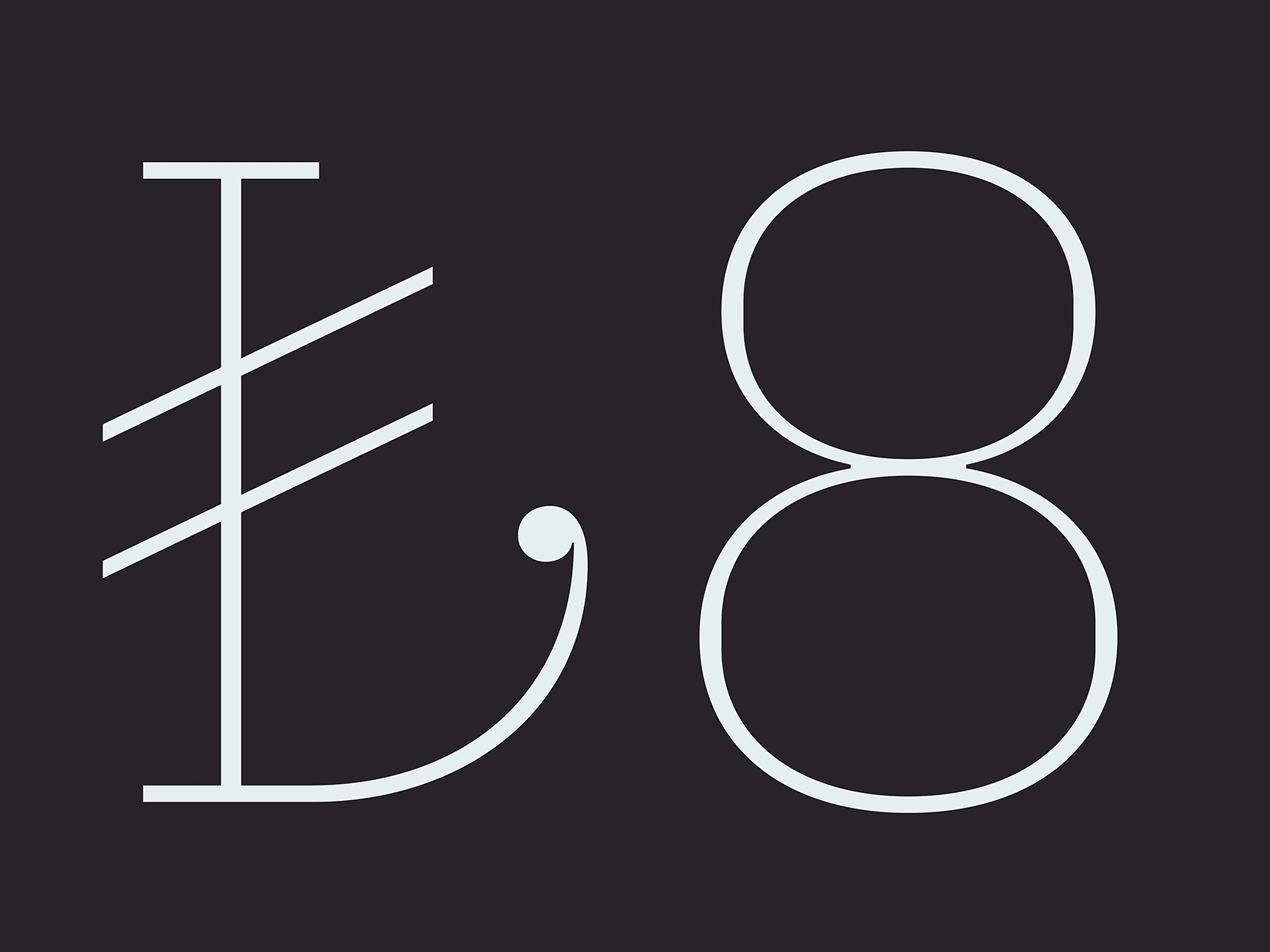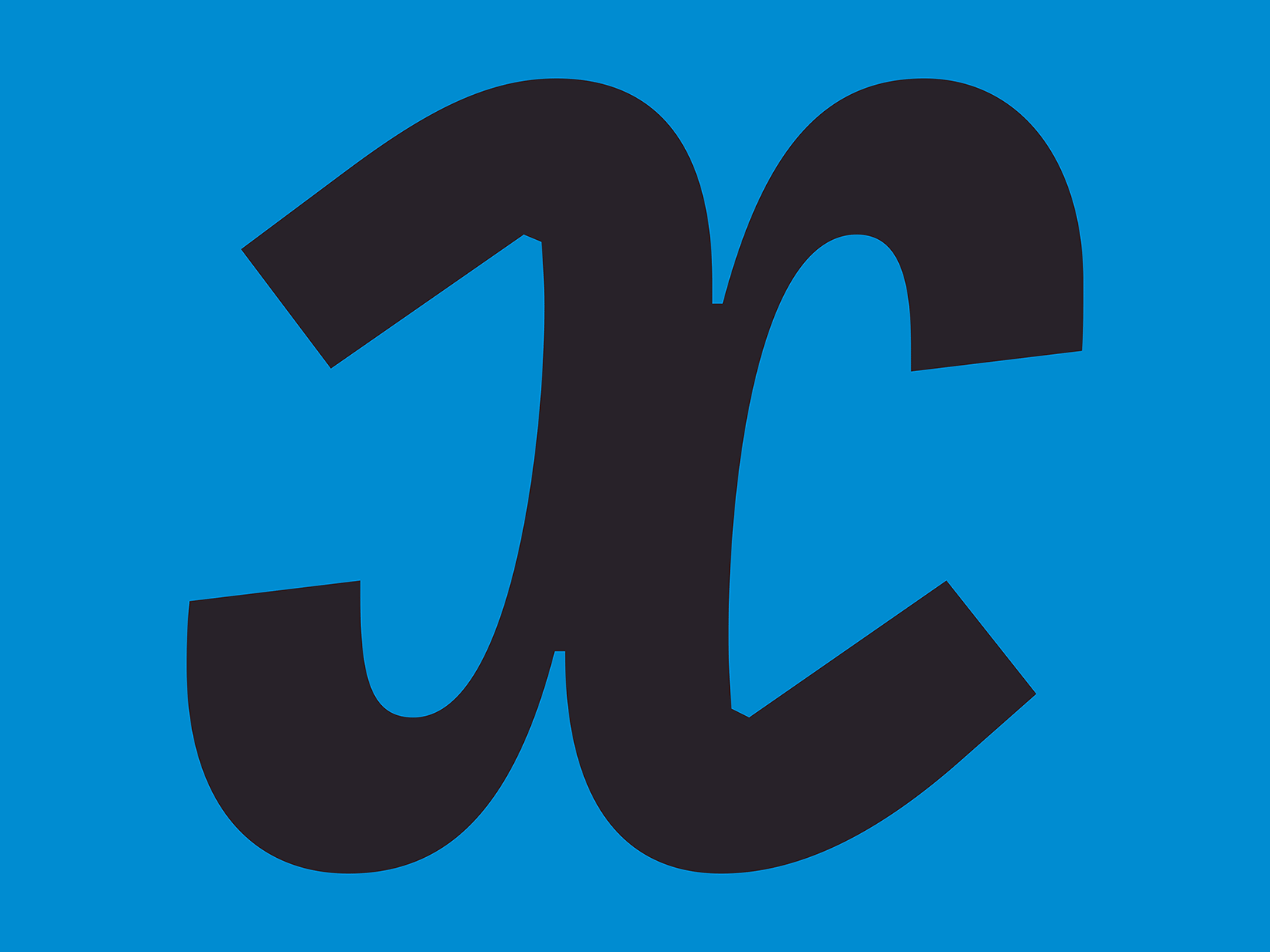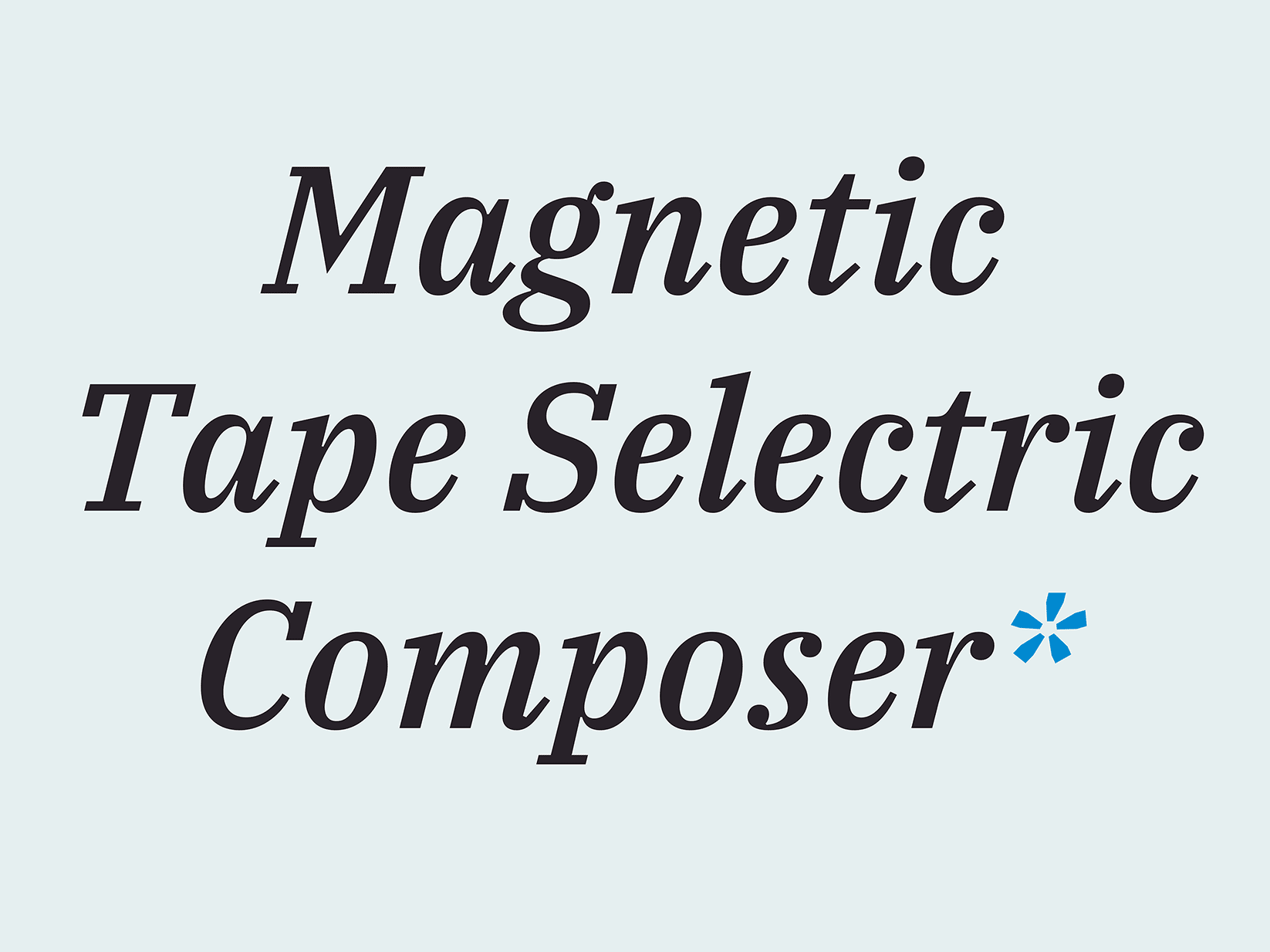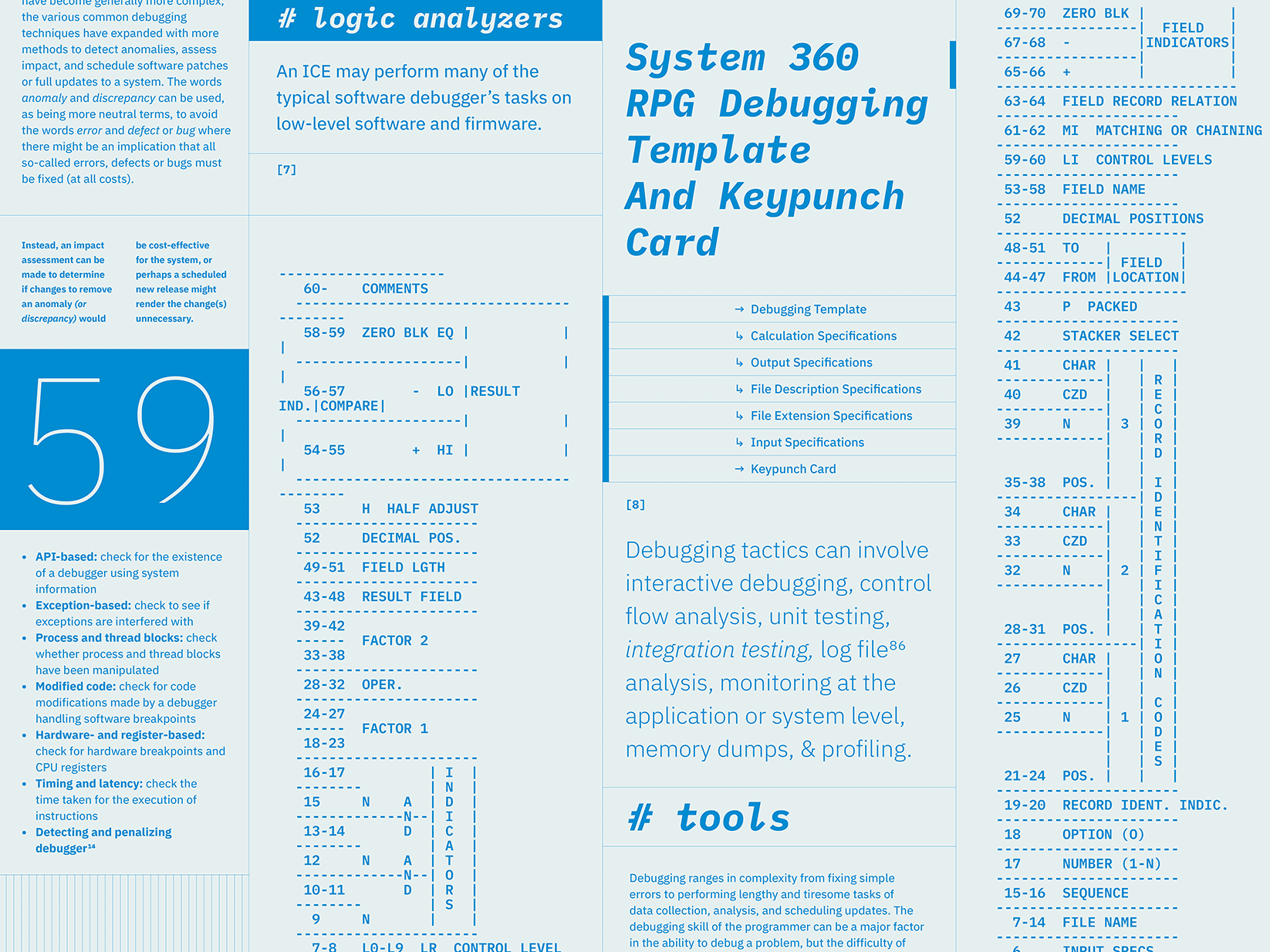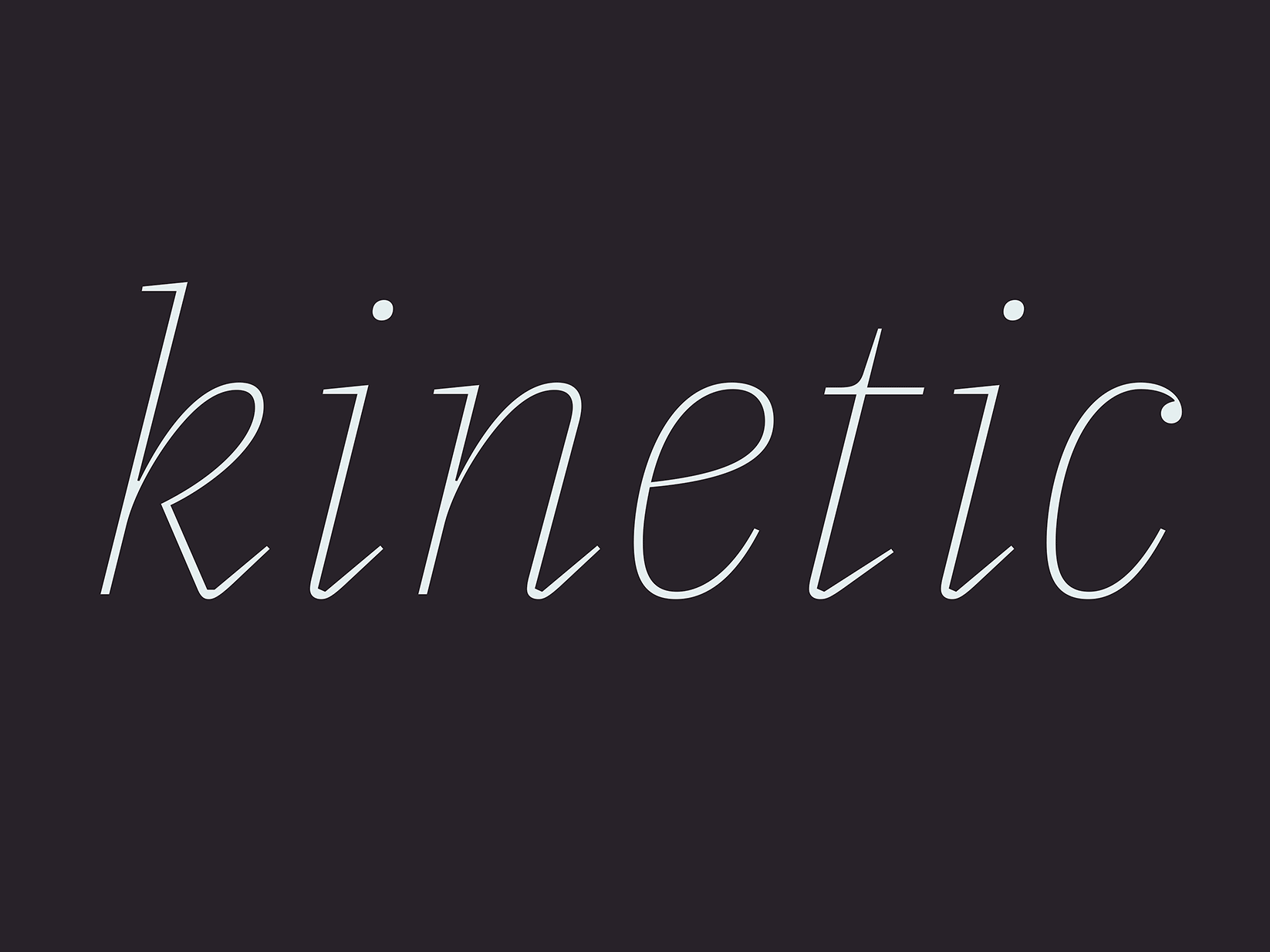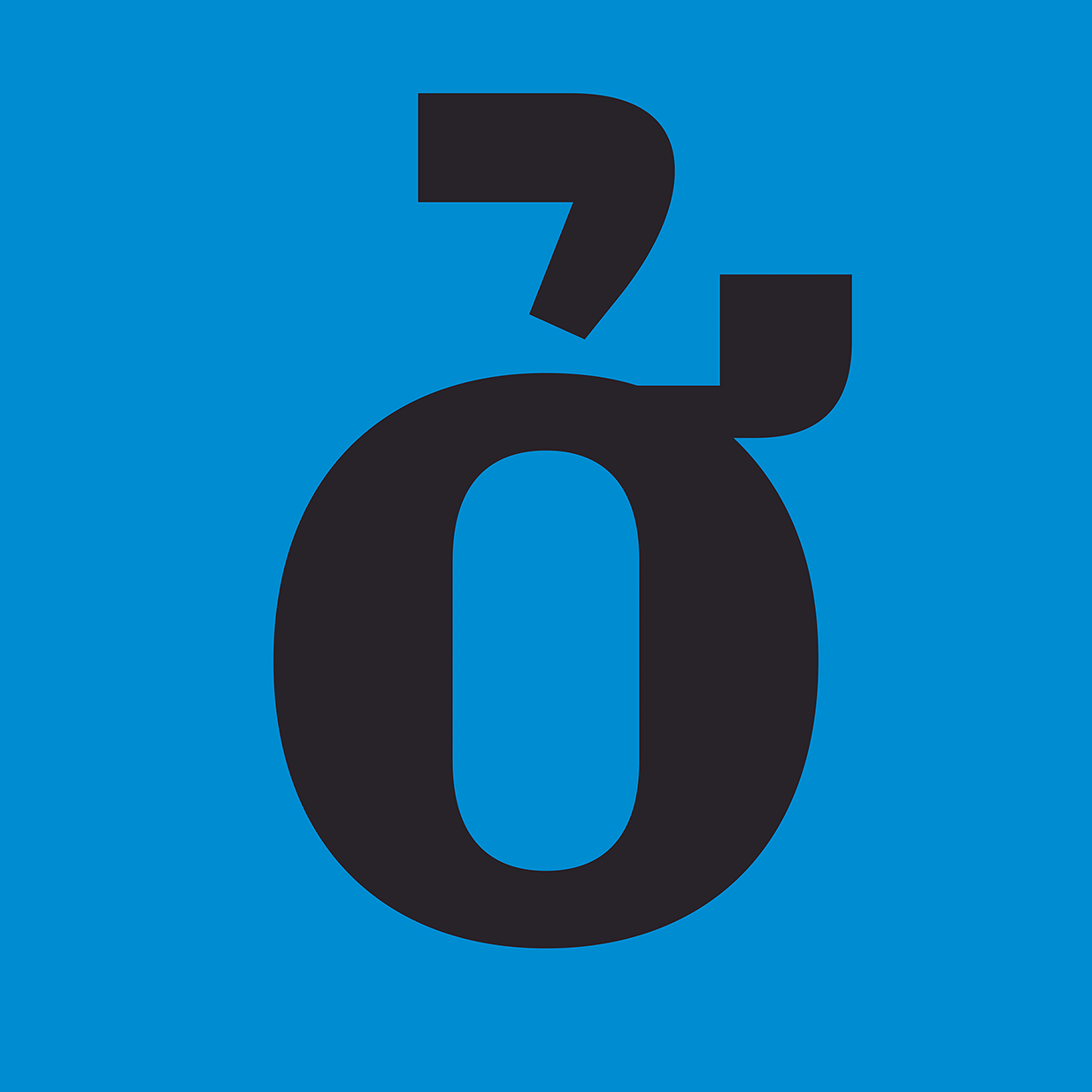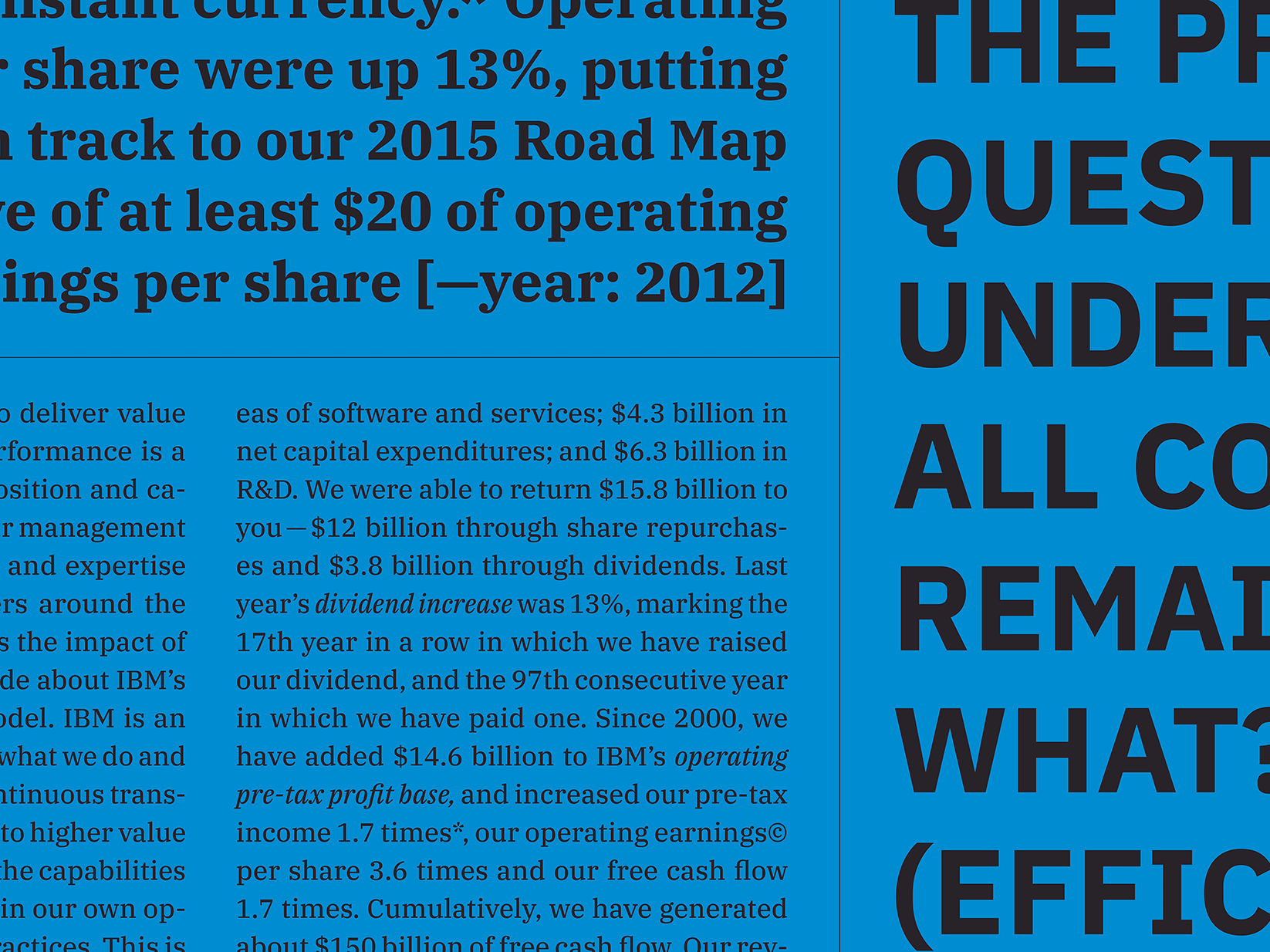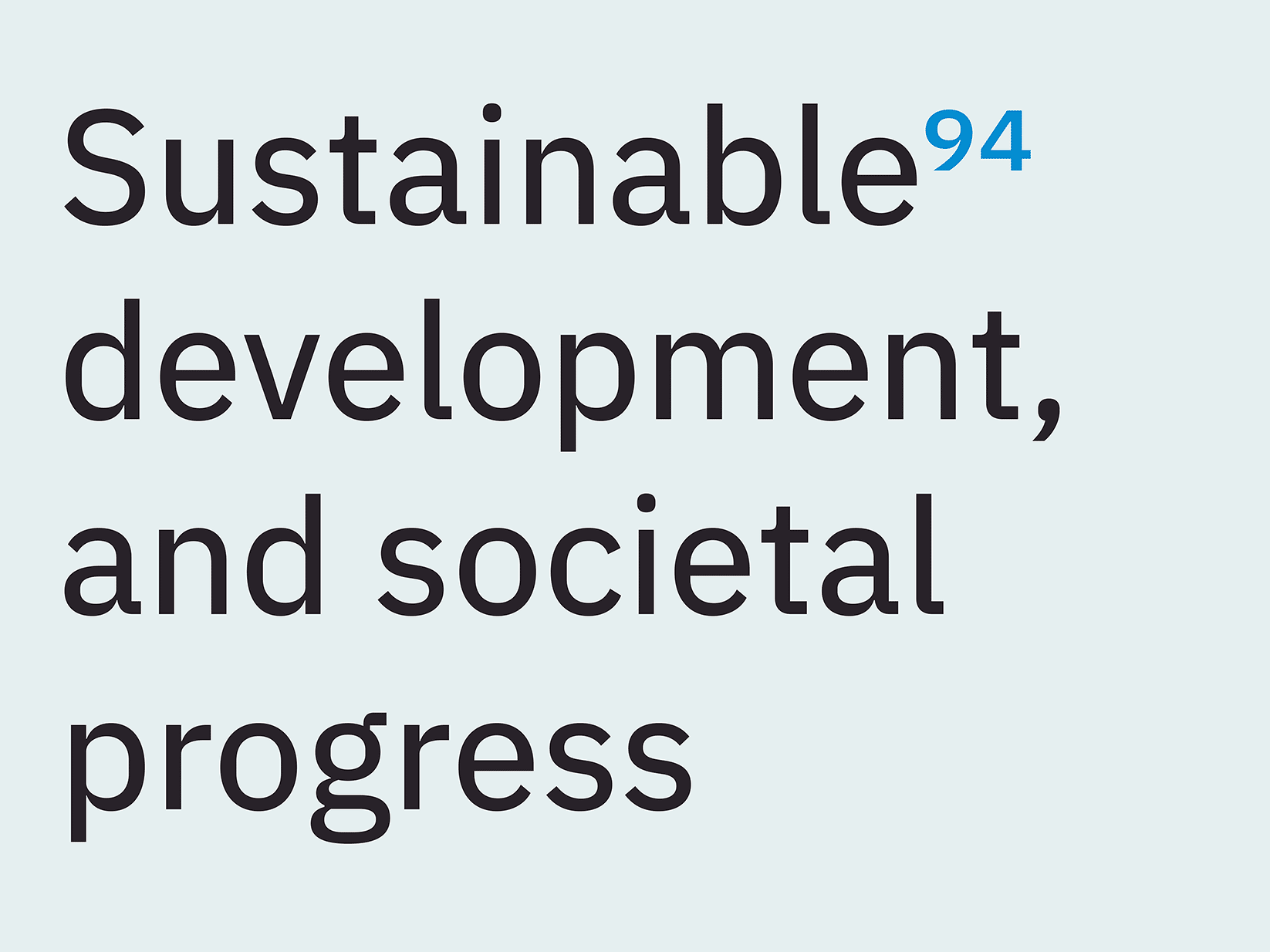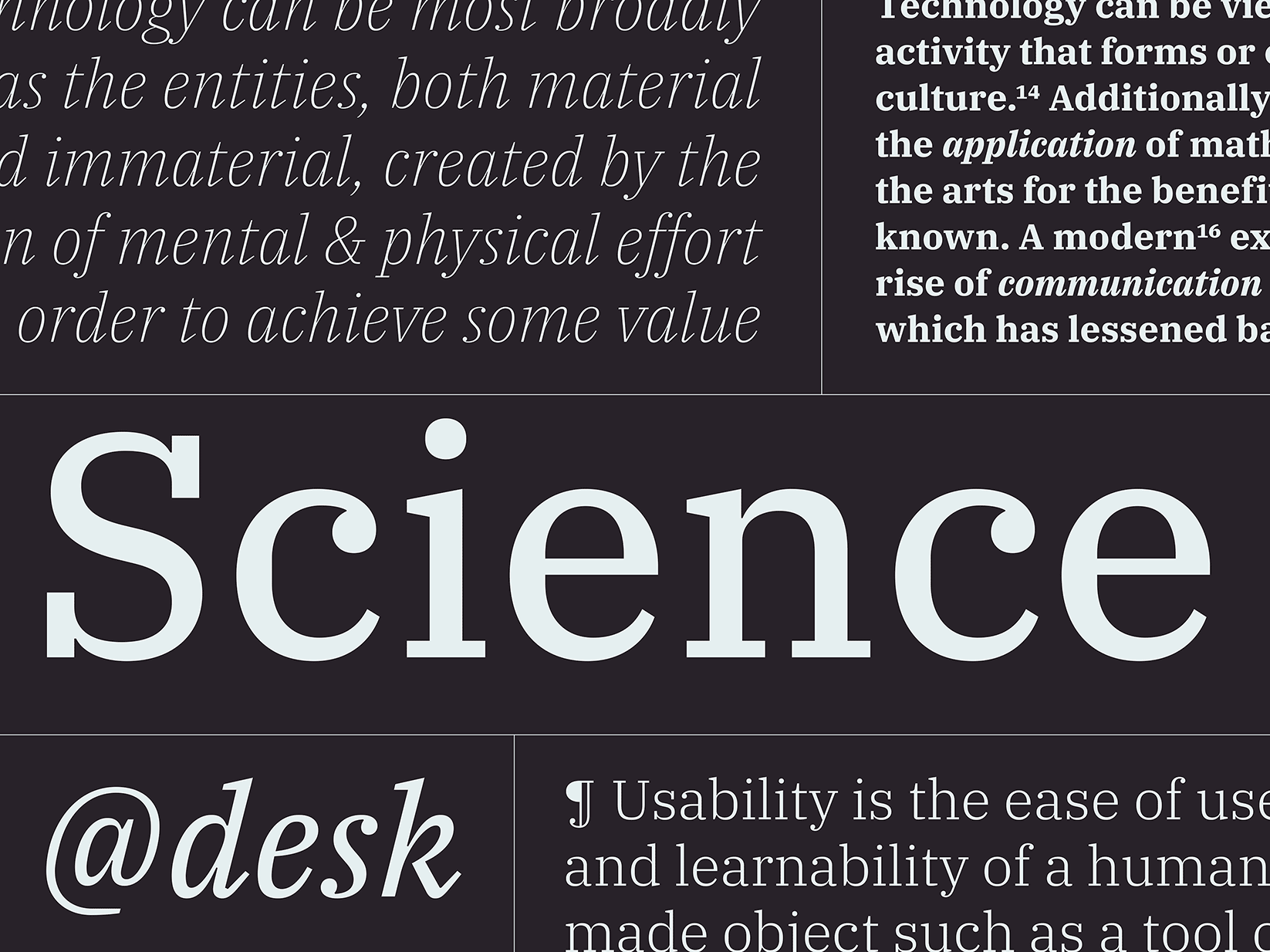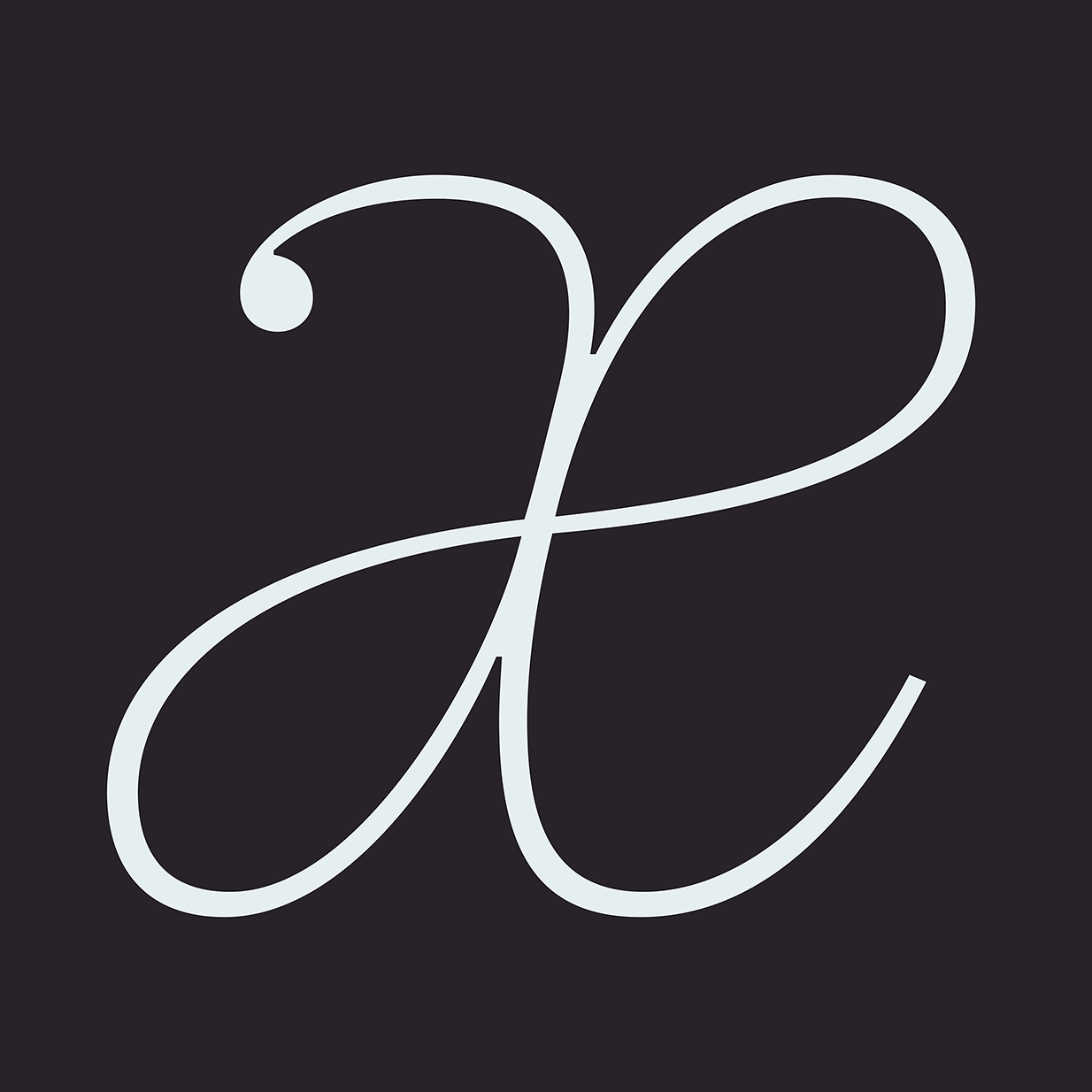
IBM Plex is the new unique corporate typeface for IBM. Designed in collaboration with Mike Abbink it has been carefully tuned to meet the requirements for one of the largest technology companies in the world and to reflect IBM’s brand spirit, beliefs and design principles. The new design of the typeface is rooted in the idea of man and machine, and borrows influences from sources such as the IBM logotype and historical typewriter typefaces. The balance of engineering versus design set the principles from which this design was born.
At this moment the IBM Plex family comprises sans-serif, serif and monospace styles to serve a variety of needs across communications and digital experiences. The sans and the serif are the workhorse families and the monospaced is great for informal communication and for developers to code with. Each branch of the IBM Plex family comes in eight weights with italics. In the future, condensed and several non-Latin script versions will be added to the family.